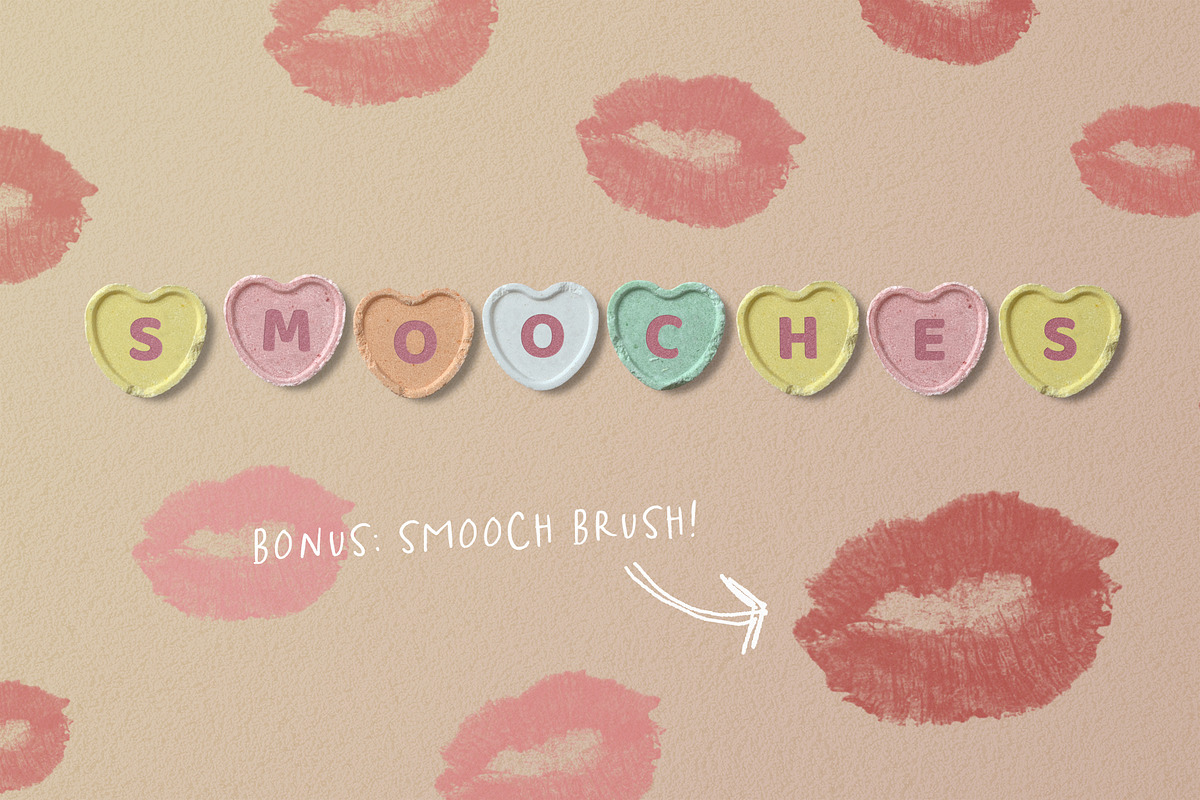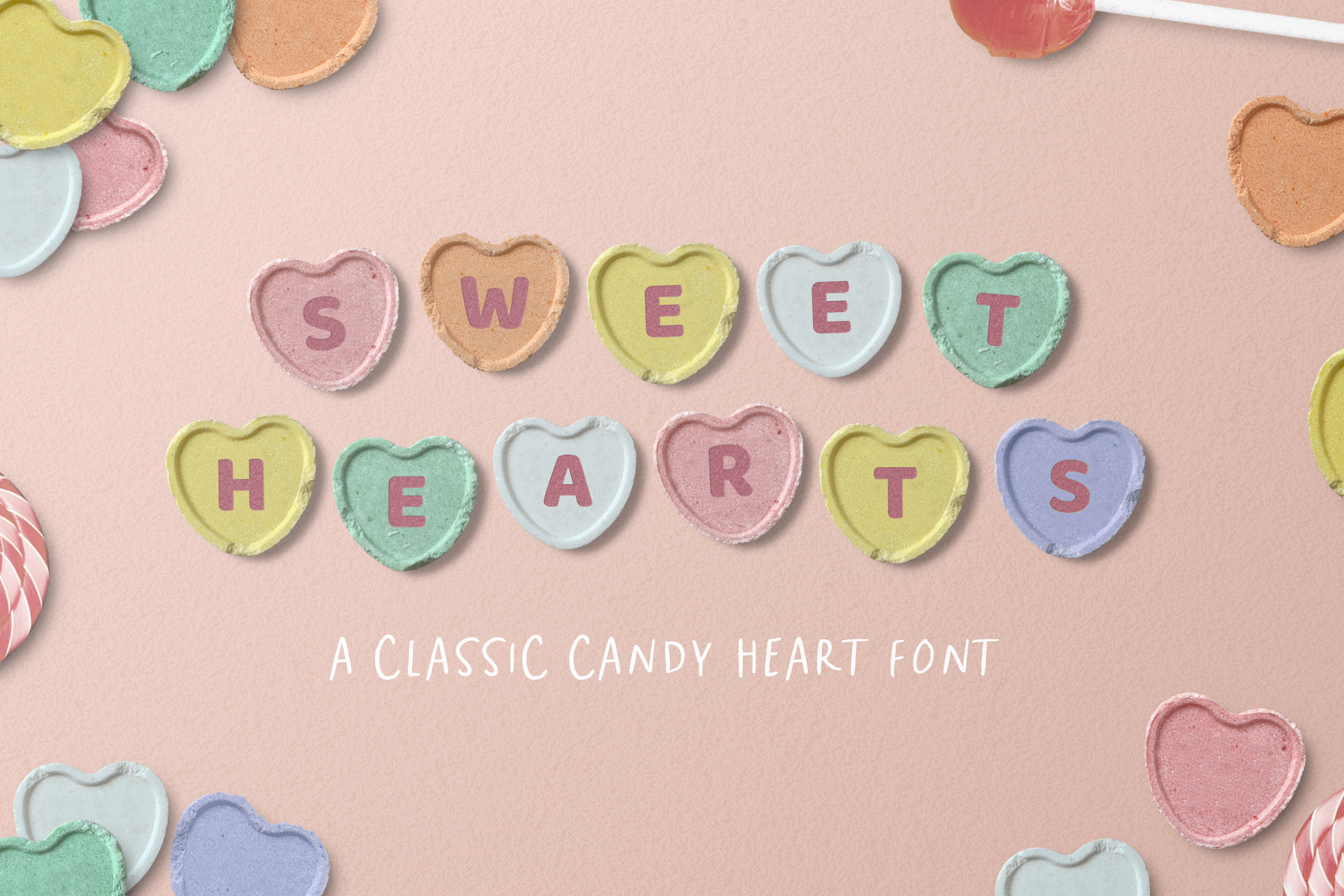
Sweet Hearts Candy Font
A font guaranteed to satisfy your sweet tooth! You know those classic candy conversation hearts you always wished you could use as a font? NOW YOU CAN!
ABOUT THE PRODUCT Featuring a capital alphabet with various alternates in different colors, along with select punctuation and numerals, Sweet Hearts is made from real photographs of real candy hearts in 5 classic colors. The characters (hearts) are set at varying angles with a variety of baselines for a fun and bouncy font that’s as playful as it is nostalgic.
- Capitals, numerals, and select punctuation
- Alternates in all 5 colors for each vowel (A/E/I/O/U)
- Additional alternates for select consonants